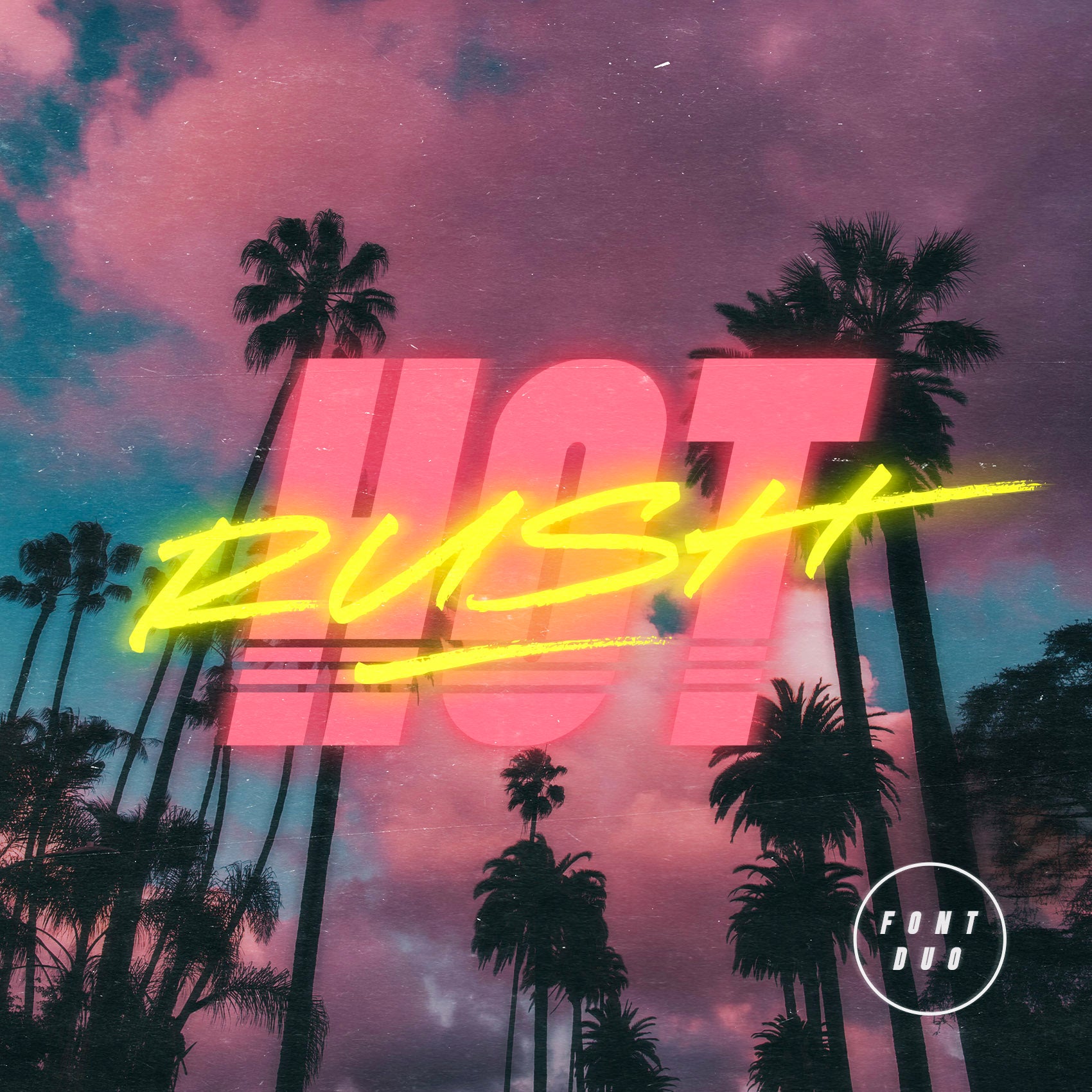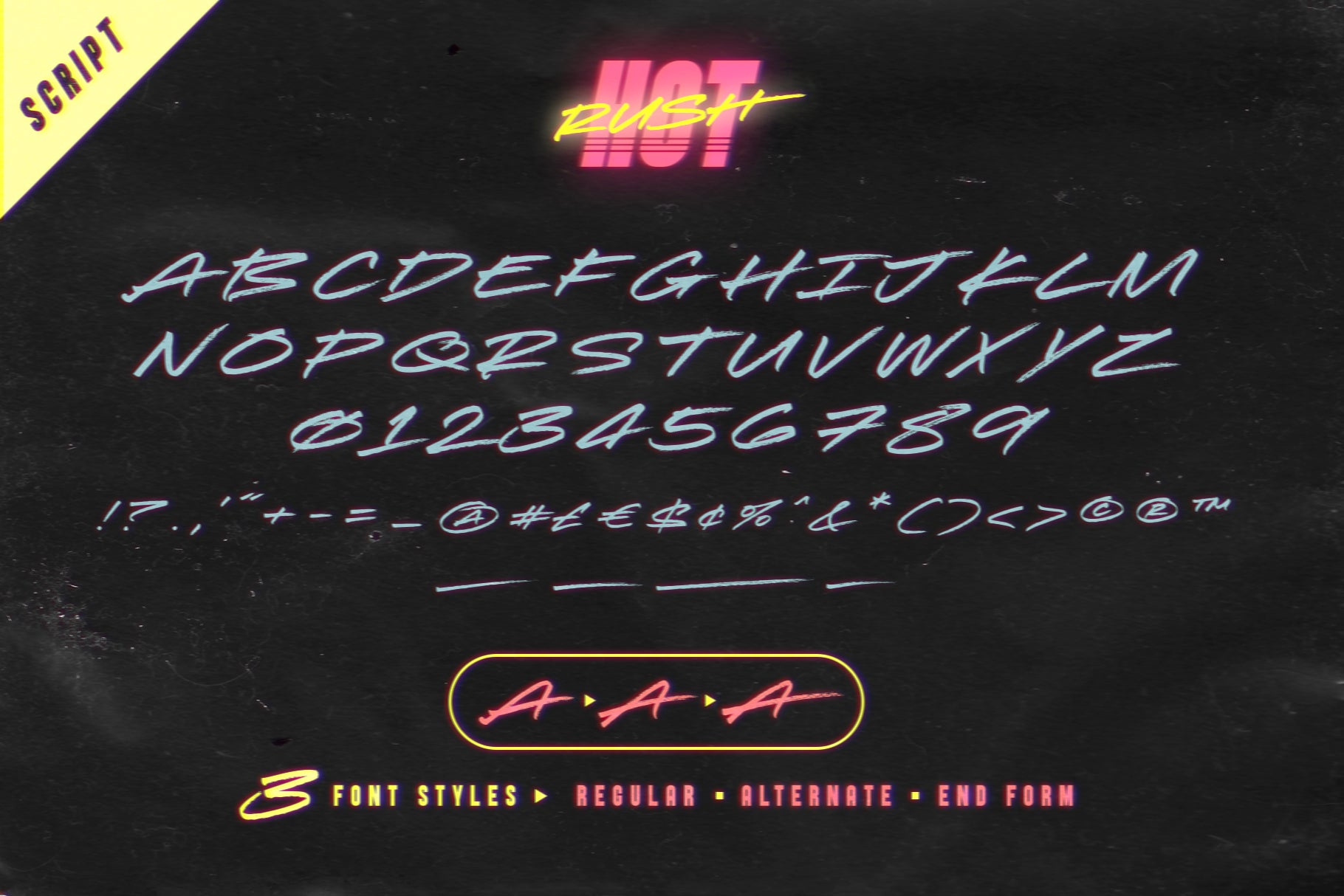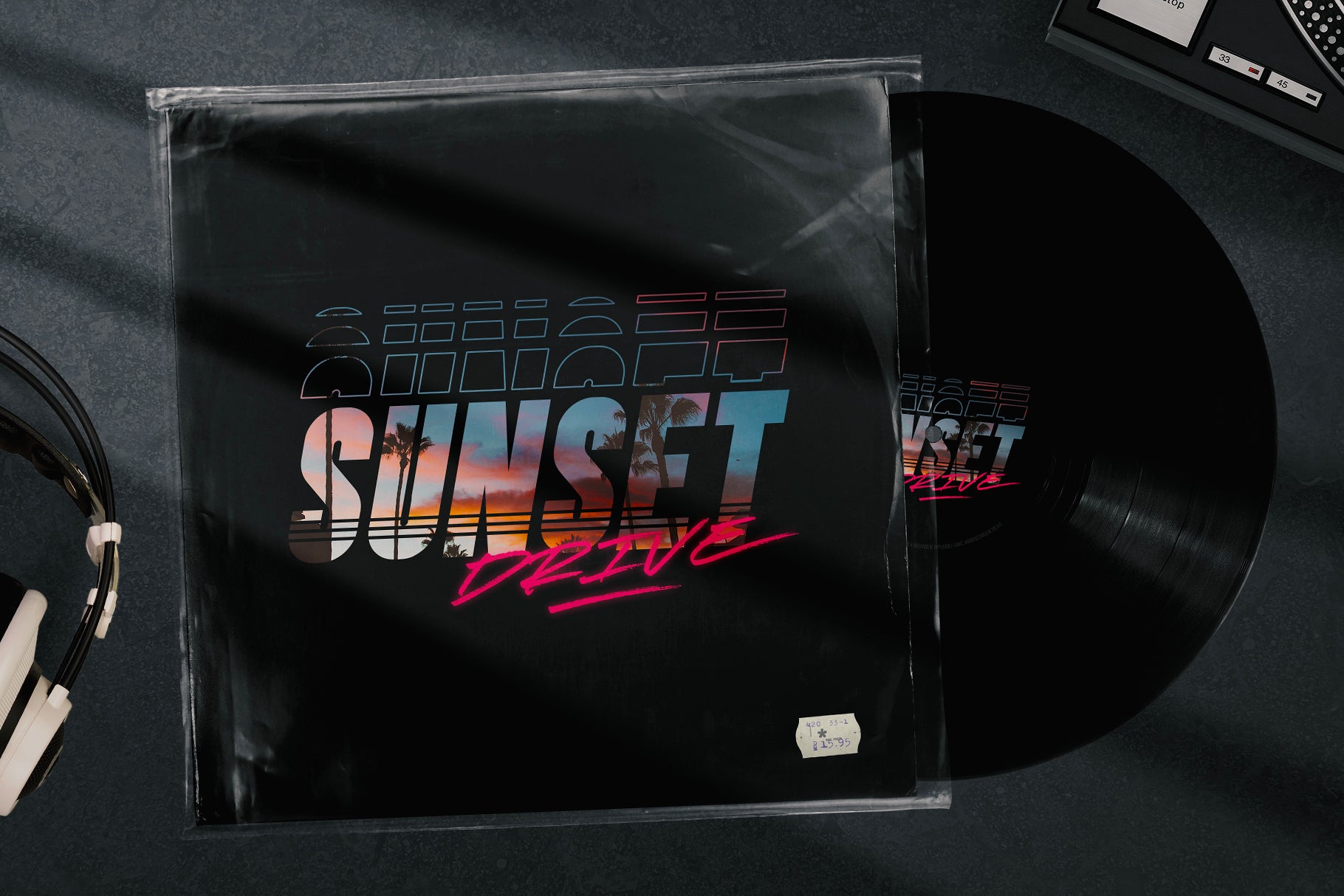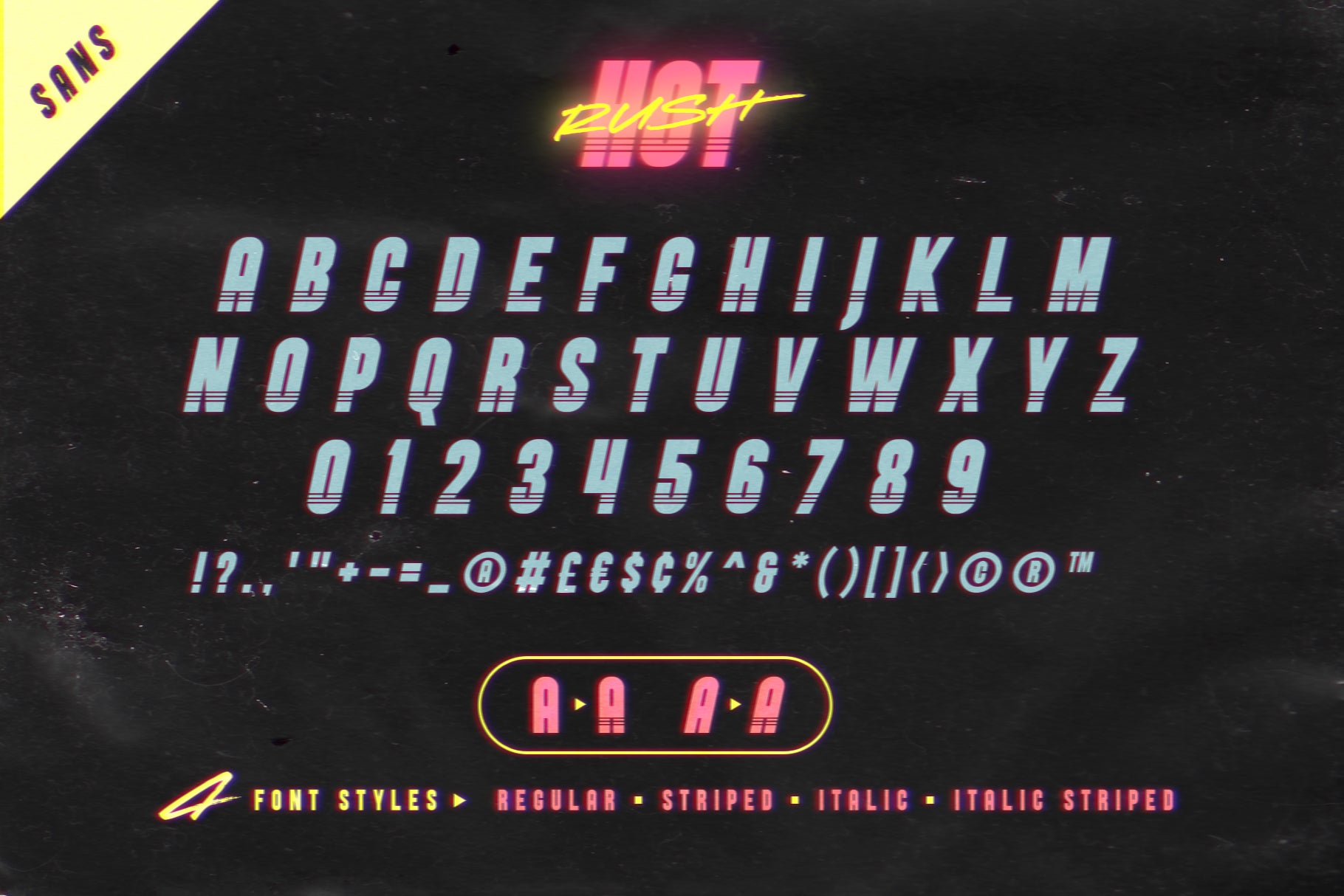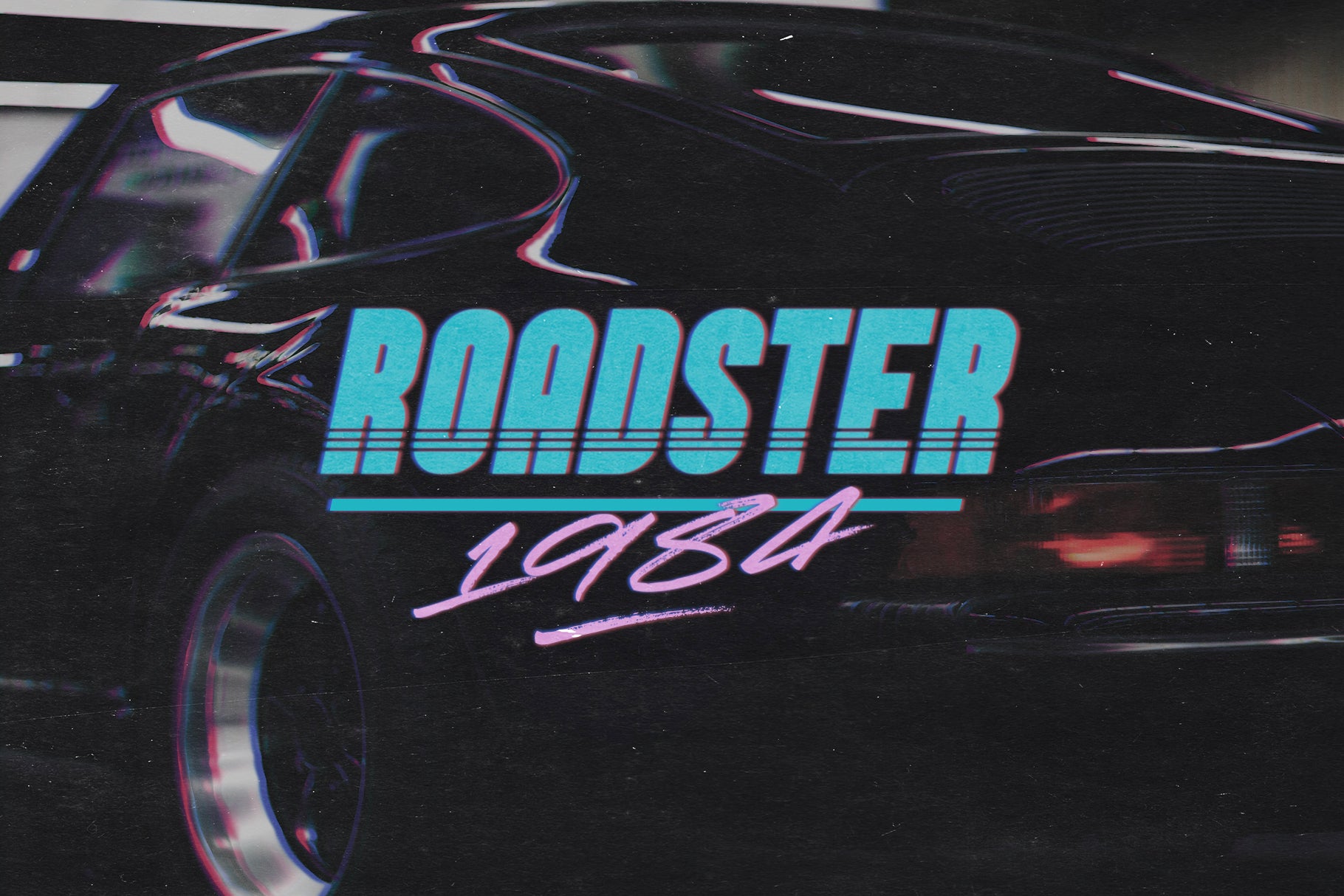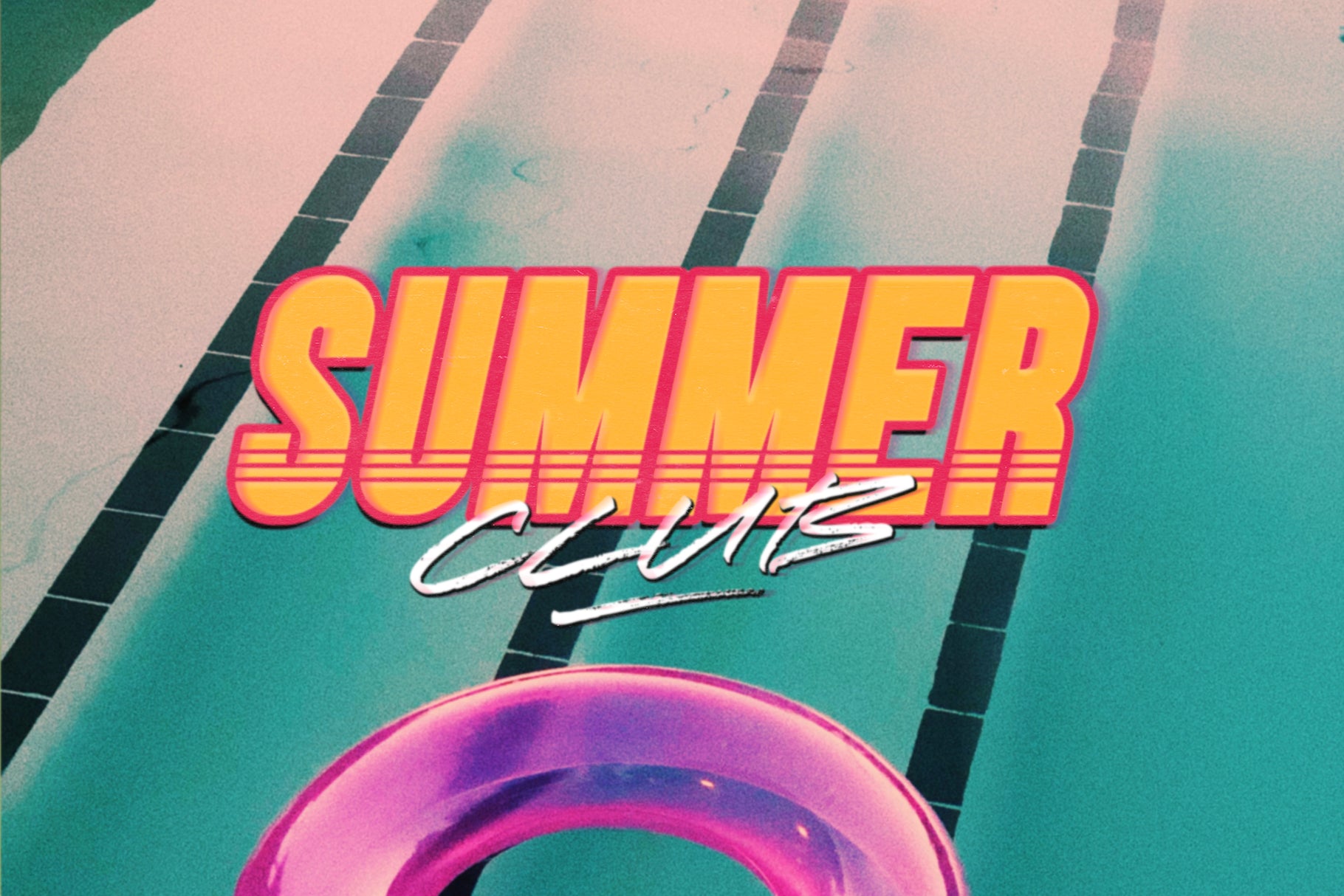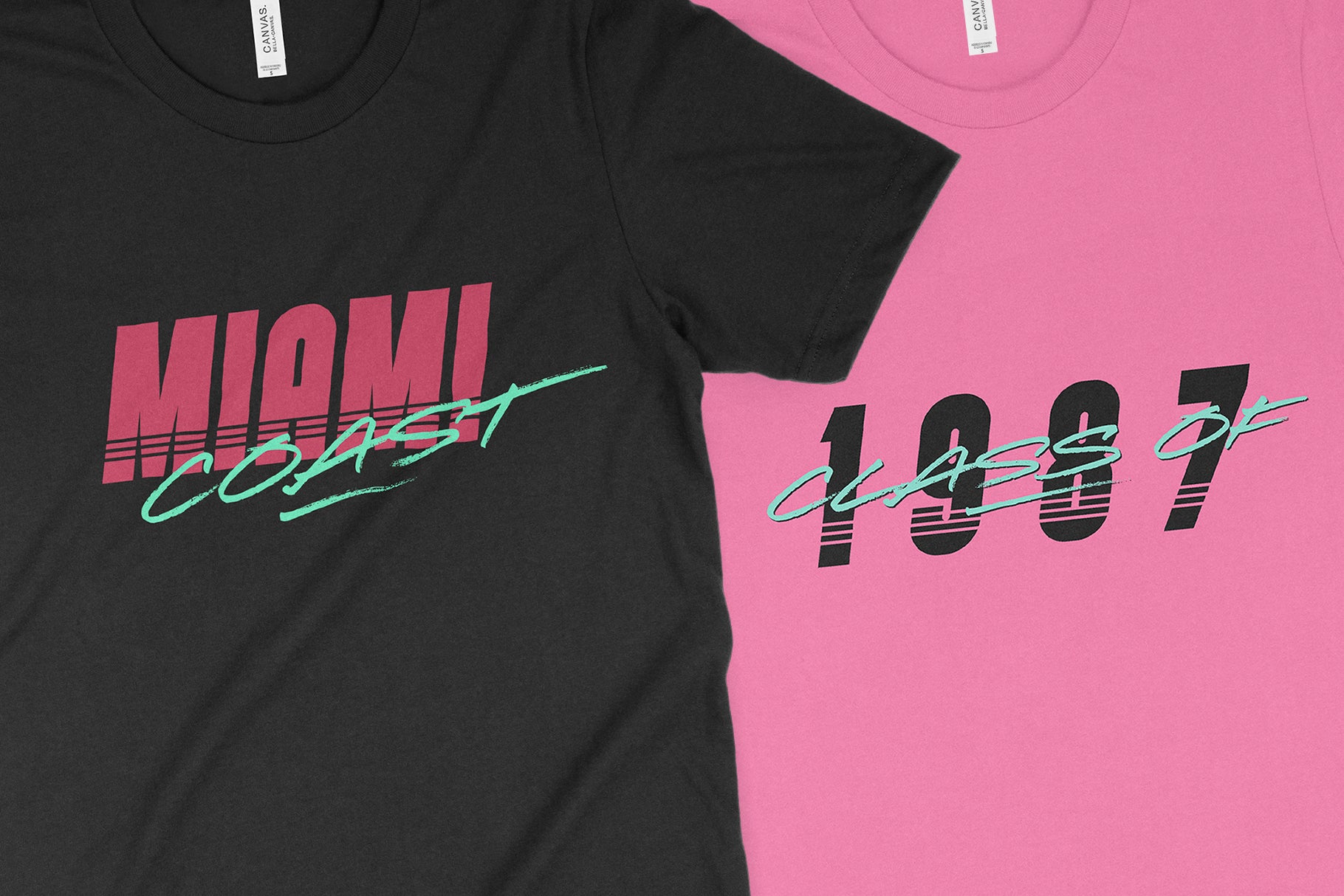
Hot Rush Font Duo
The Hot Rush Font Duo includes a condensed sans-serif font and a textured script font, both featuring uppercase-only characters, along with italic versions and a striped variant for added style. It also offers stylistic alternates for certain letters and swashes for decorative underlining, making it a versatile choice for retro-inspired designs.